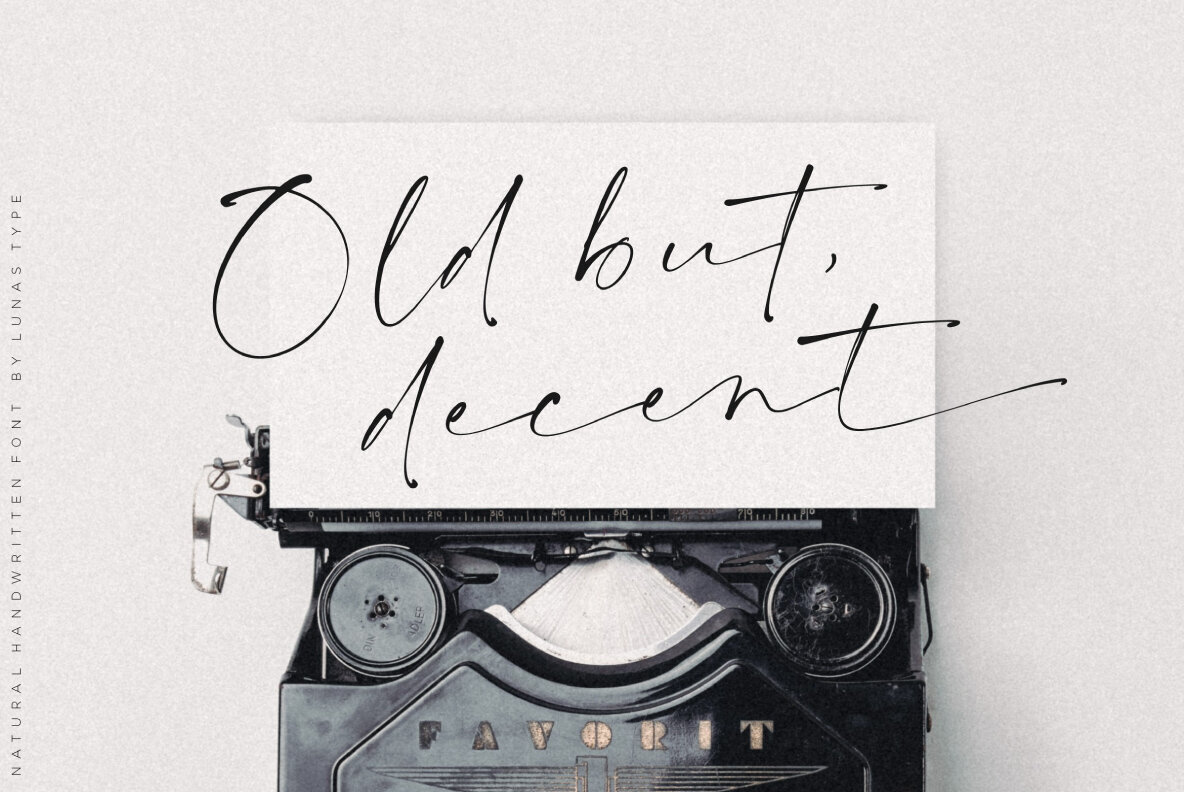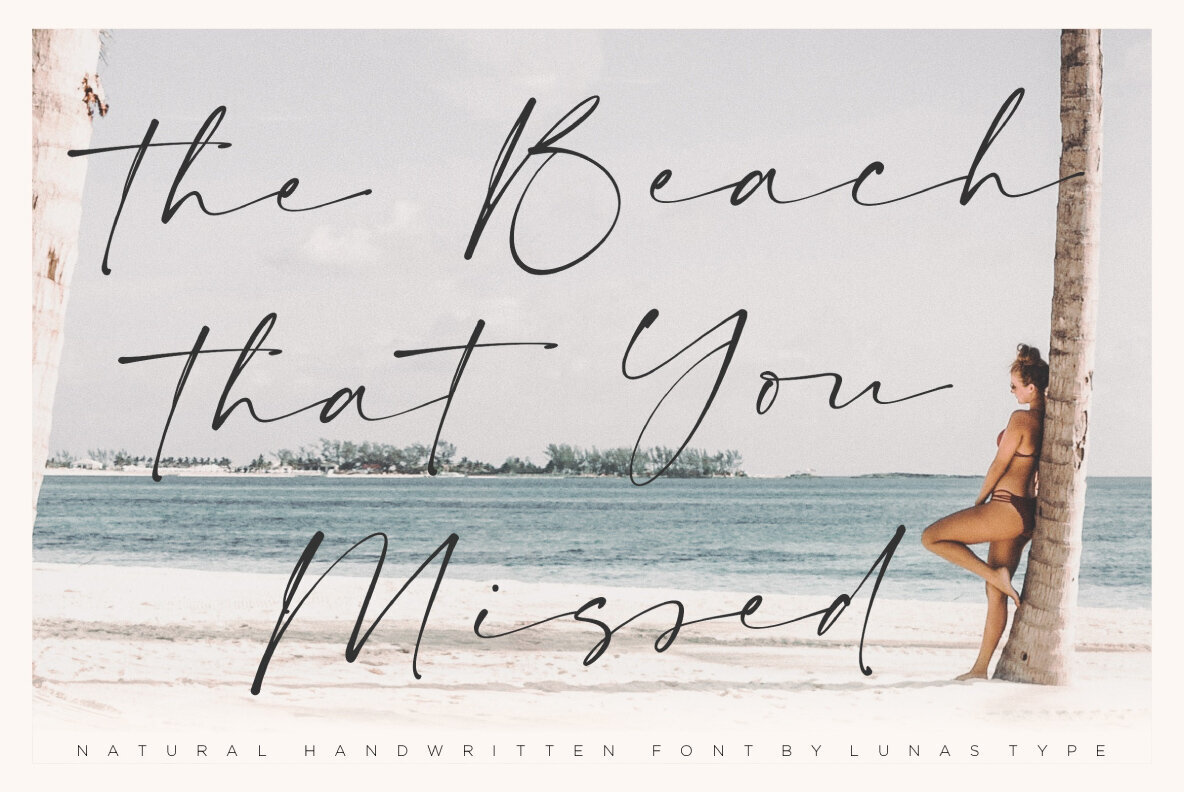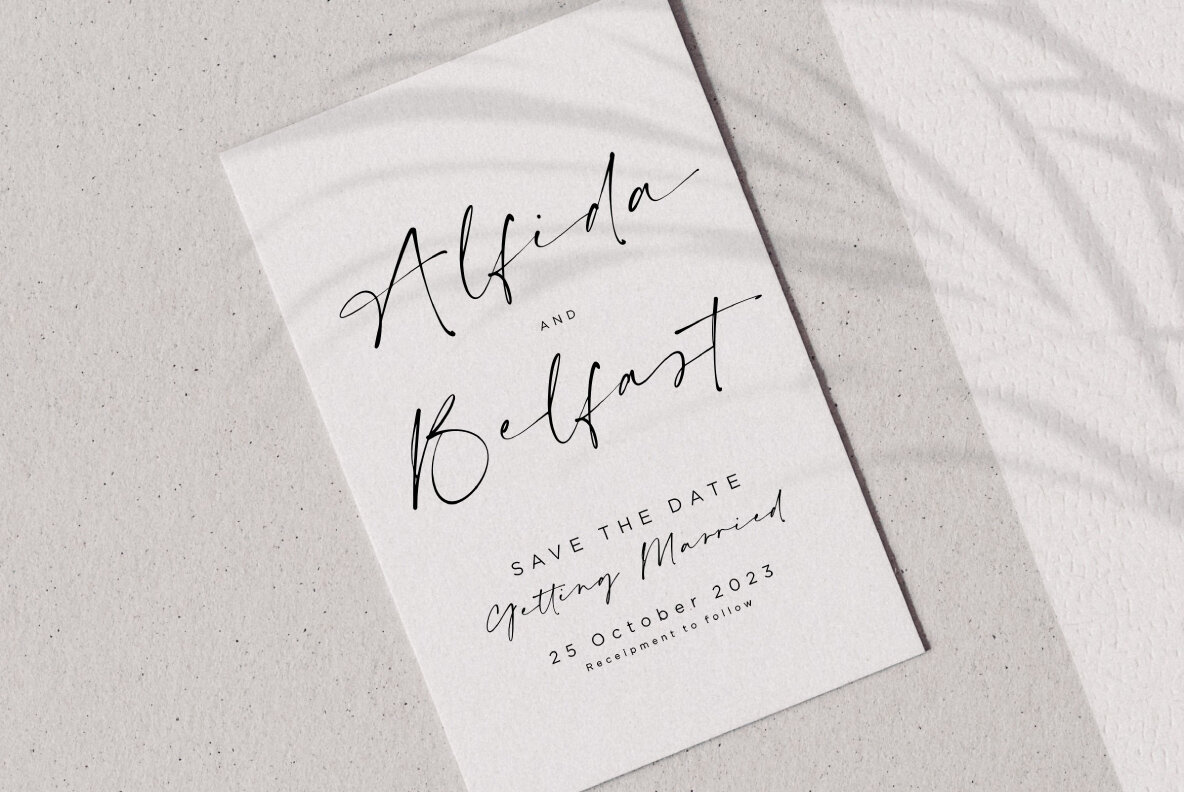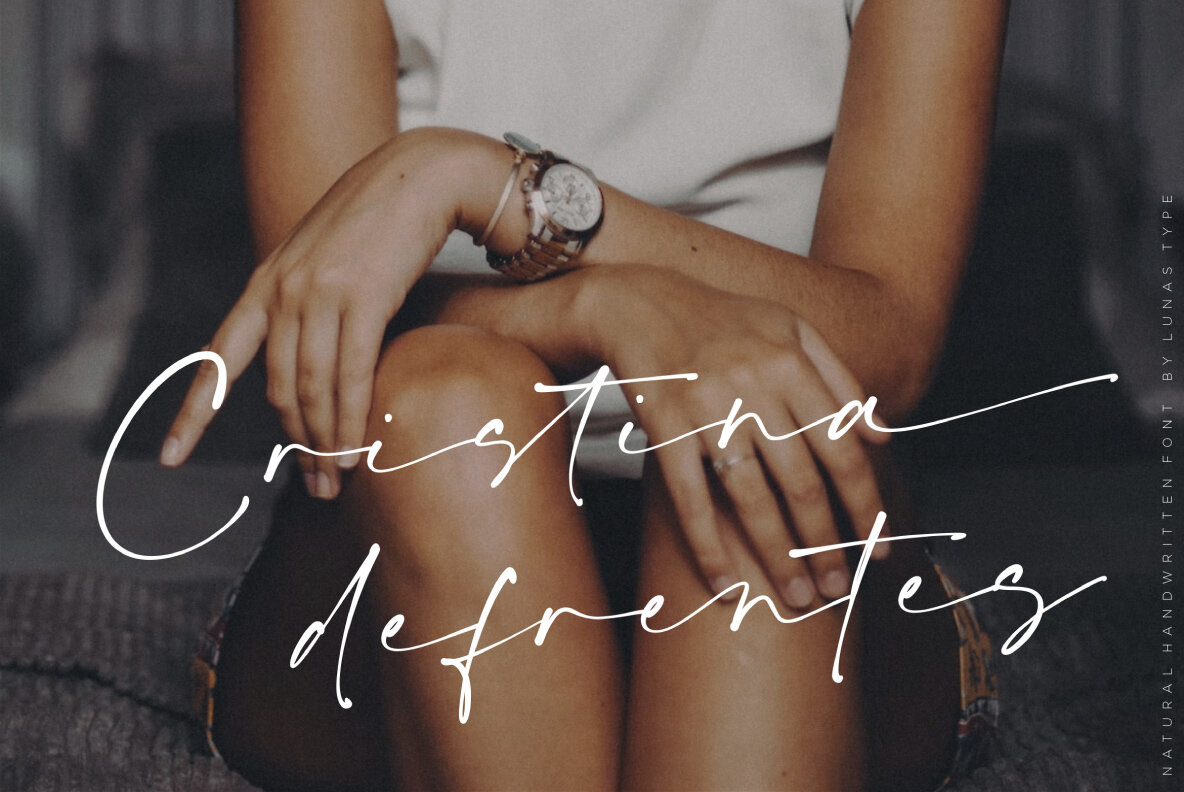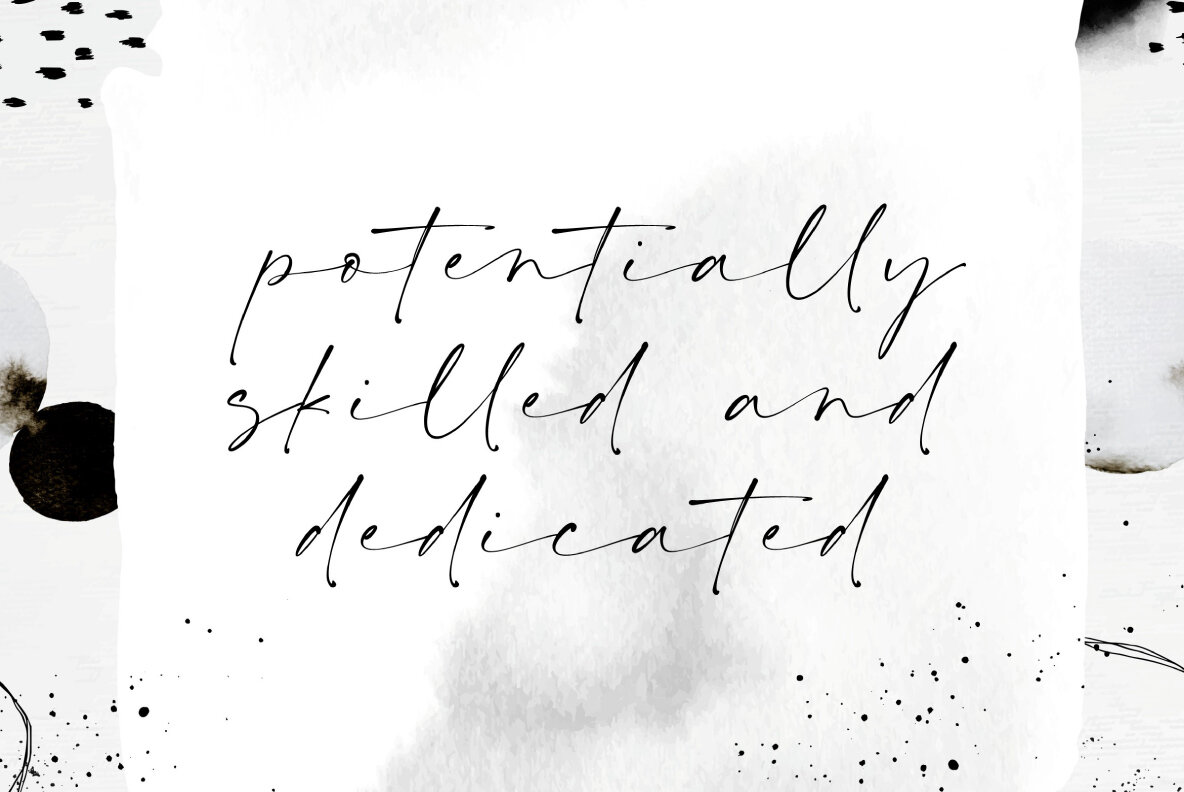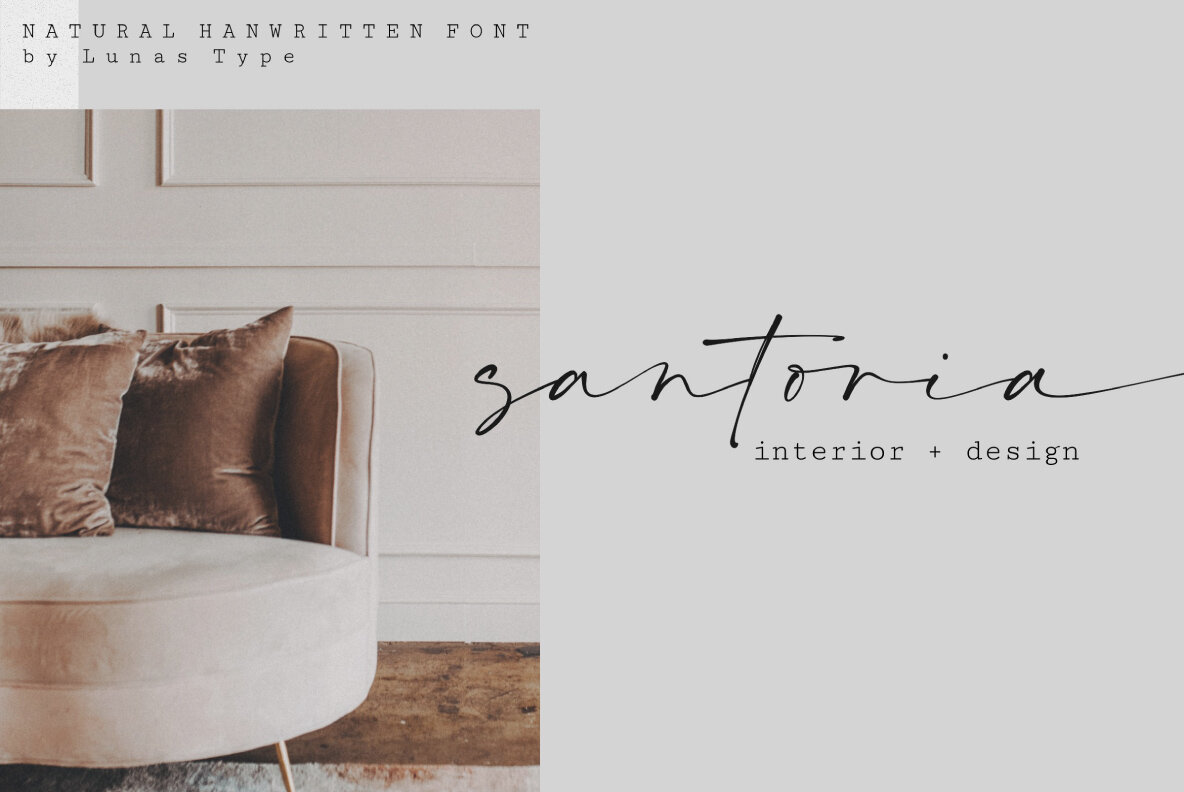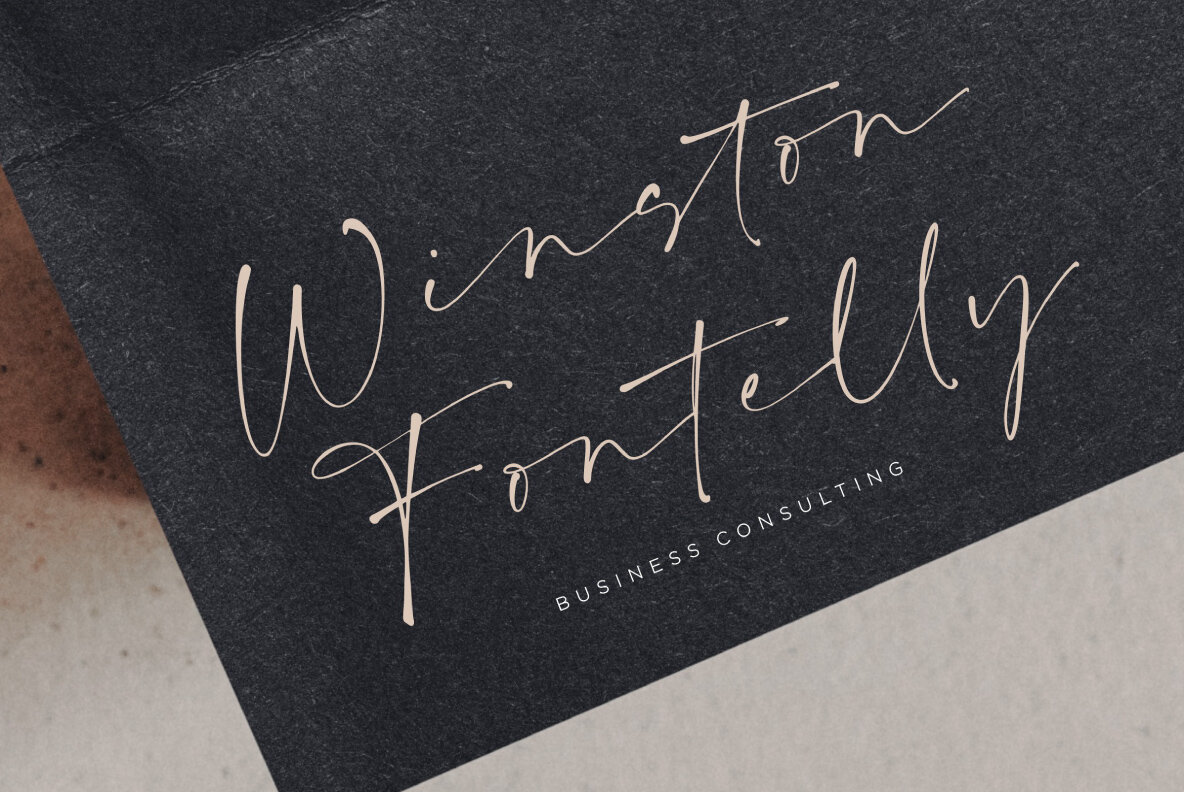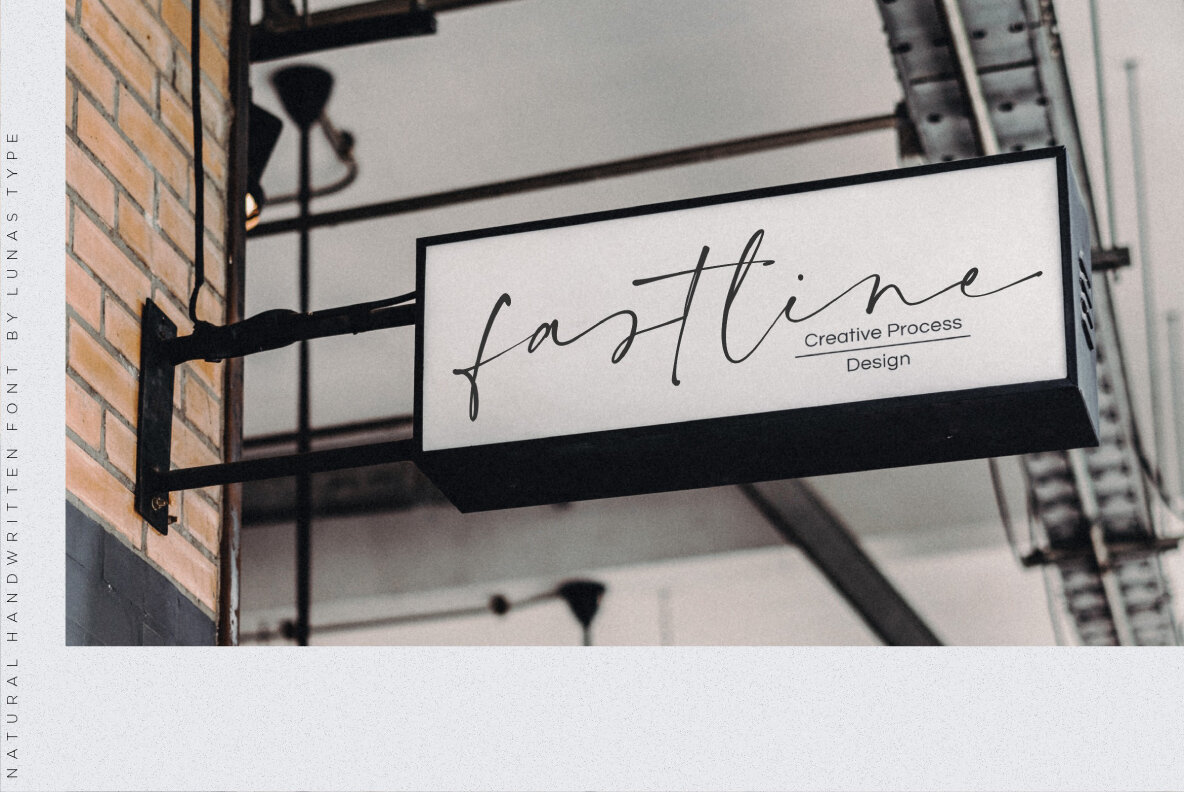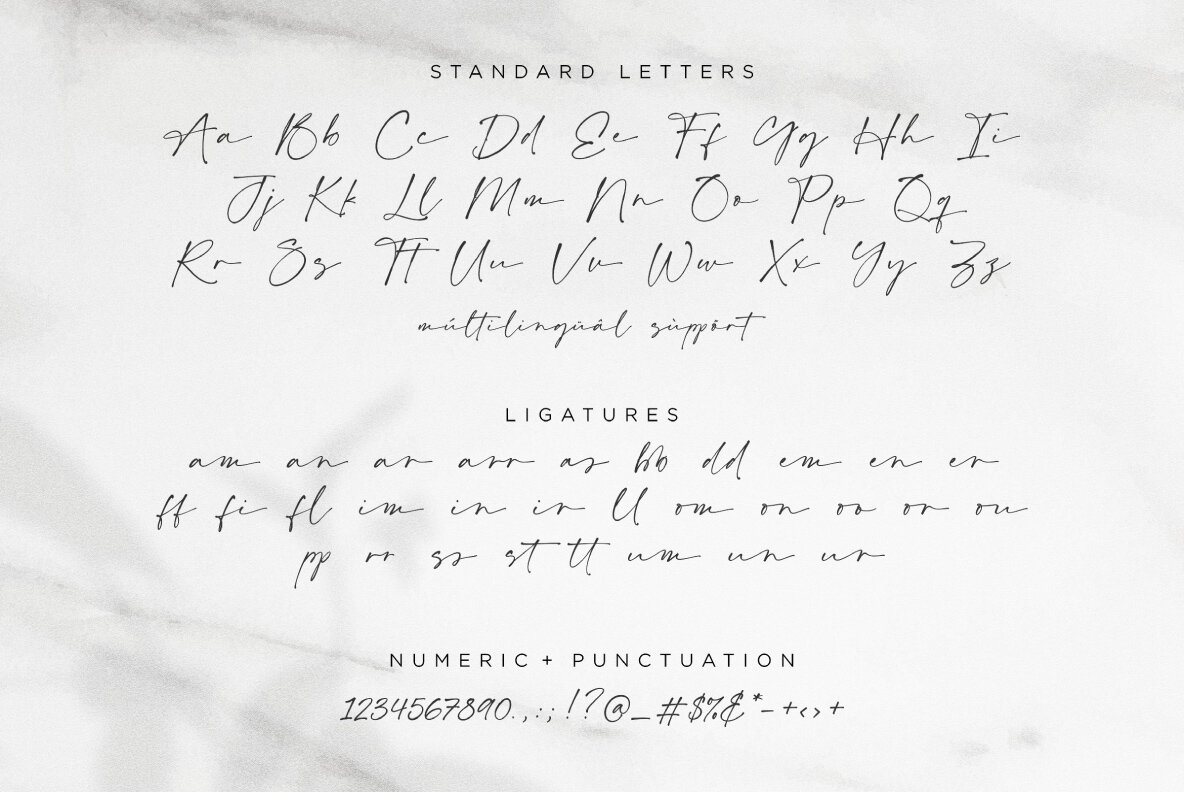
Firstland Font
Firstland Regular
Firstland is a natural handwritten font that imbues designs with a personal, approachable charm. Its simplicity and warmth make it an ideal choice for projects requiring a friendly, inviting tone. Whether used on merchandise, T-shirts, or wedding invitations, Firstland lends an authentic touch that enhances any design. Perfect for an array of creative needs, Firstland shines in applications ranging from signature logos and book covers to social media posts and event materials. Its versatility ensures that it seamlessly integrates into any project, adding a distinctive flair.Firstland: A Handwritten Font for Personal Touch